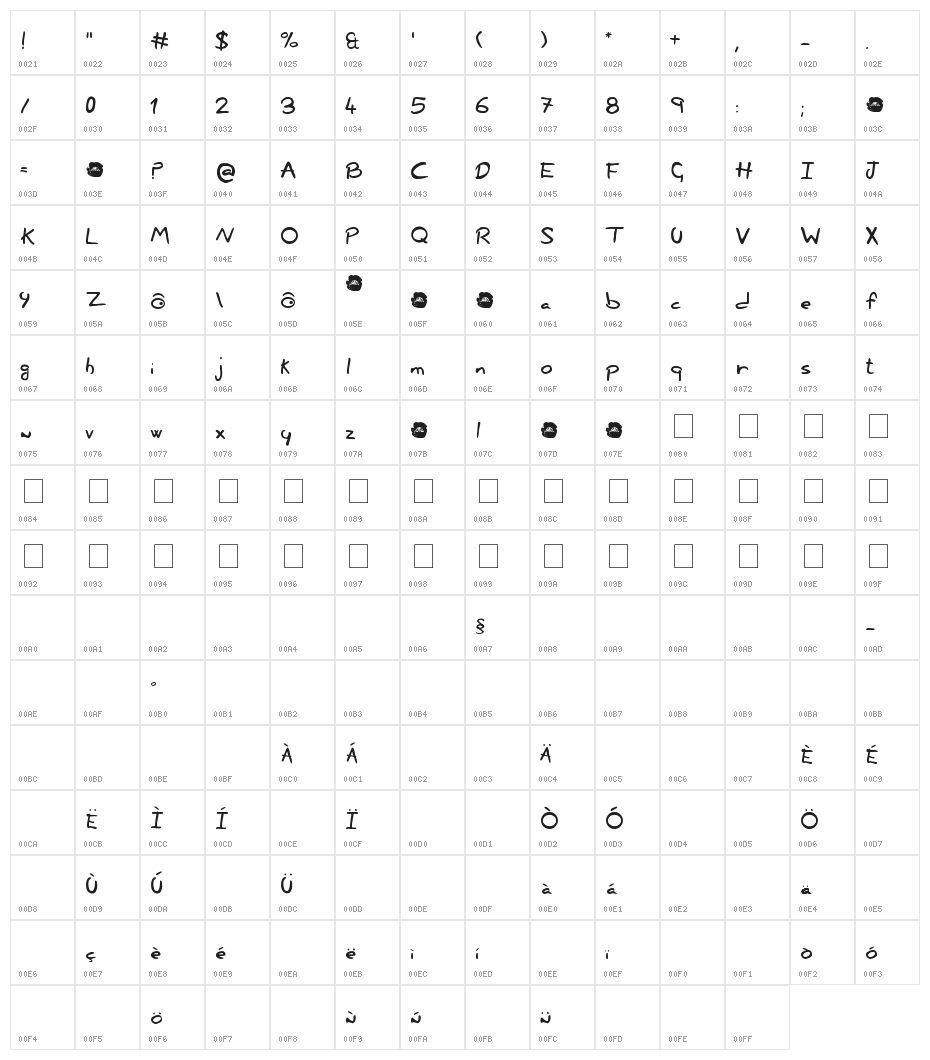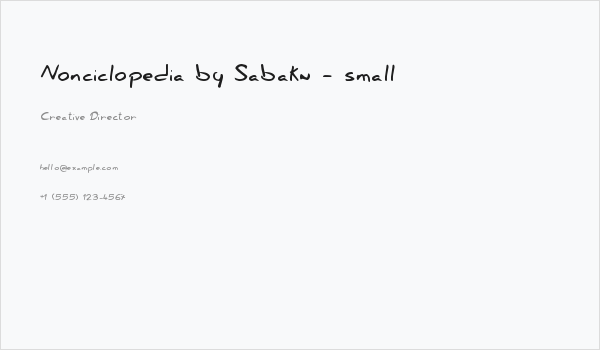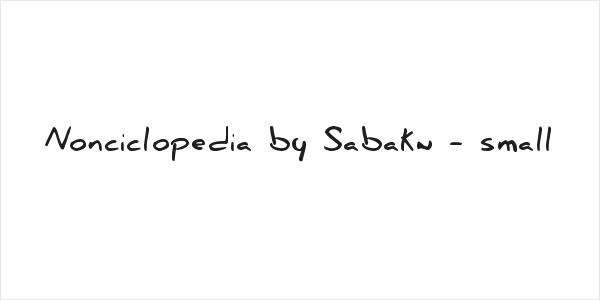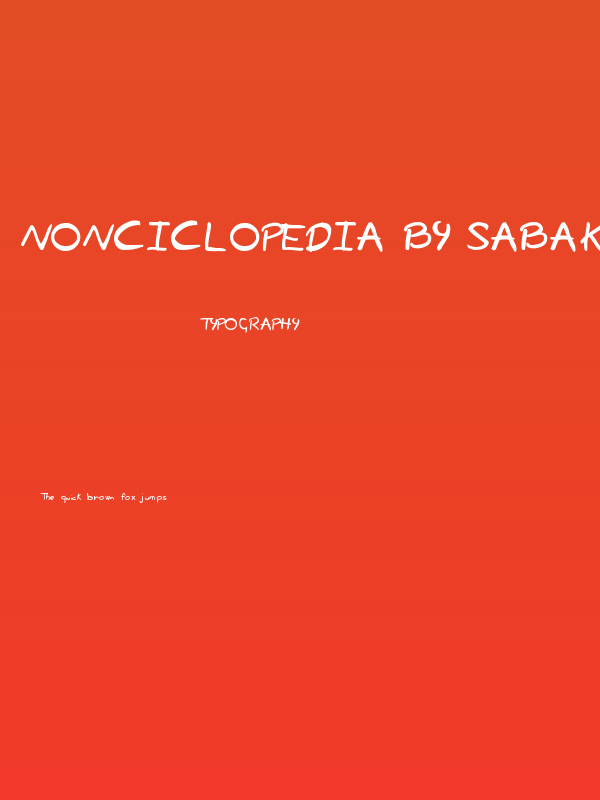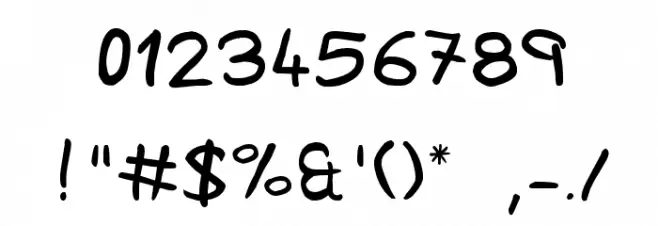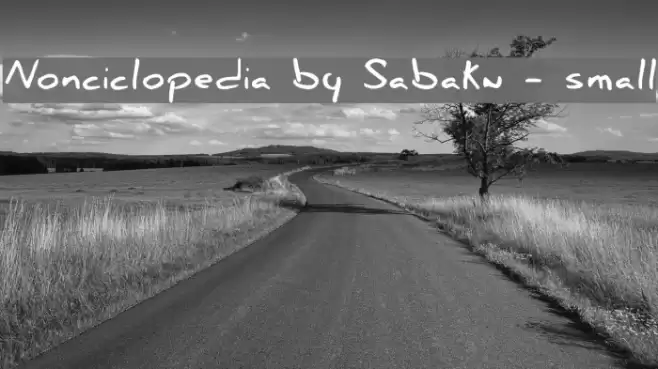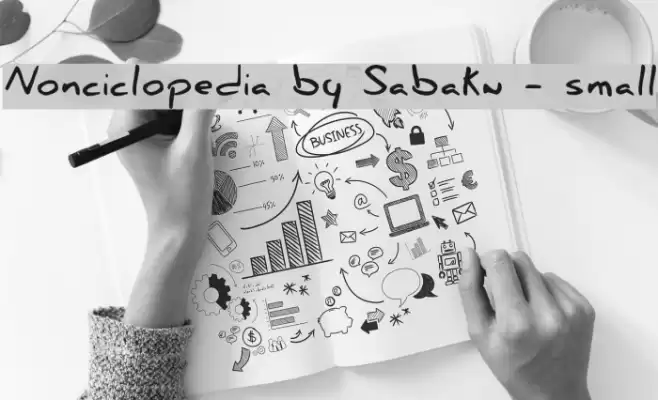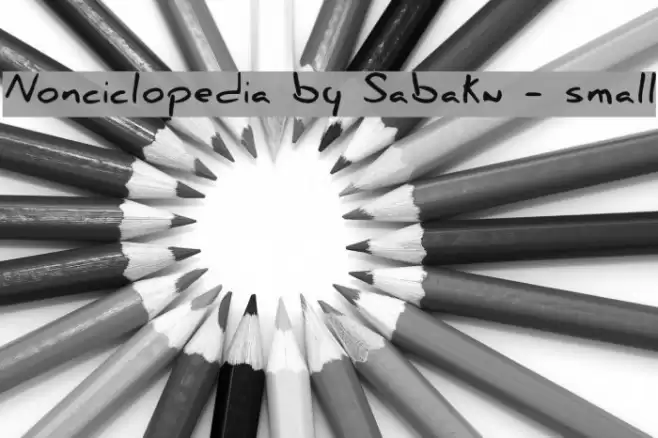
Nonciclopedia by Sabaku - small Font
Nonciclopedia by Sabaku - small Description
This font exhibits a playful and informal handwritten style, characterized by its irregular strokes and casual appearance. The letters are slightly slanted, giving a dynamic and lively feel. The uppercase and lowercase letters maintain a consistent flow, with rounded edges and varying stroke thickness that adds to its whimsical charm. The numerals and special characters follow the same playful aesthetic, making the font suitable for creative and informal projects. Its unique style captures attention while maintaining readability.
| Use Case | Headlines, Logos, Informal Text |
| Proposed Projects | Ideal for children's books, comic strips, casual branding, and playful invitations. |